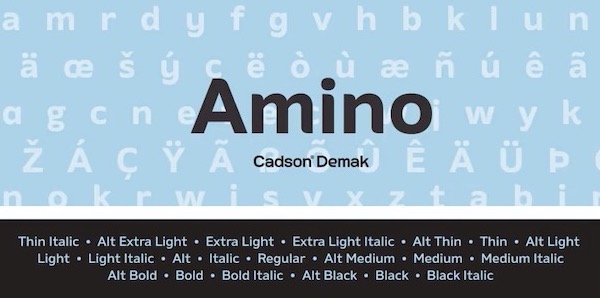
Amino Font
Amino is a modern Sans Serif typeface that was designed by Anuthin Wongsunkakon and published by Cadson Demak. It includes twenty-one gorgeous styles along with family package options.
Amino is an elegant sans serif font and it will be perfect for beauty branding, magazines, poster designs, and so on. This is a chic & familiar display sans font with a unique, modern, chic, and luxurious look. Whether you’re using this basic typeface for greeting cards, digital designs, crafts, presentations, etc.
Designed by Anuthin Wongsunkakon
Published by: Cadson Demak